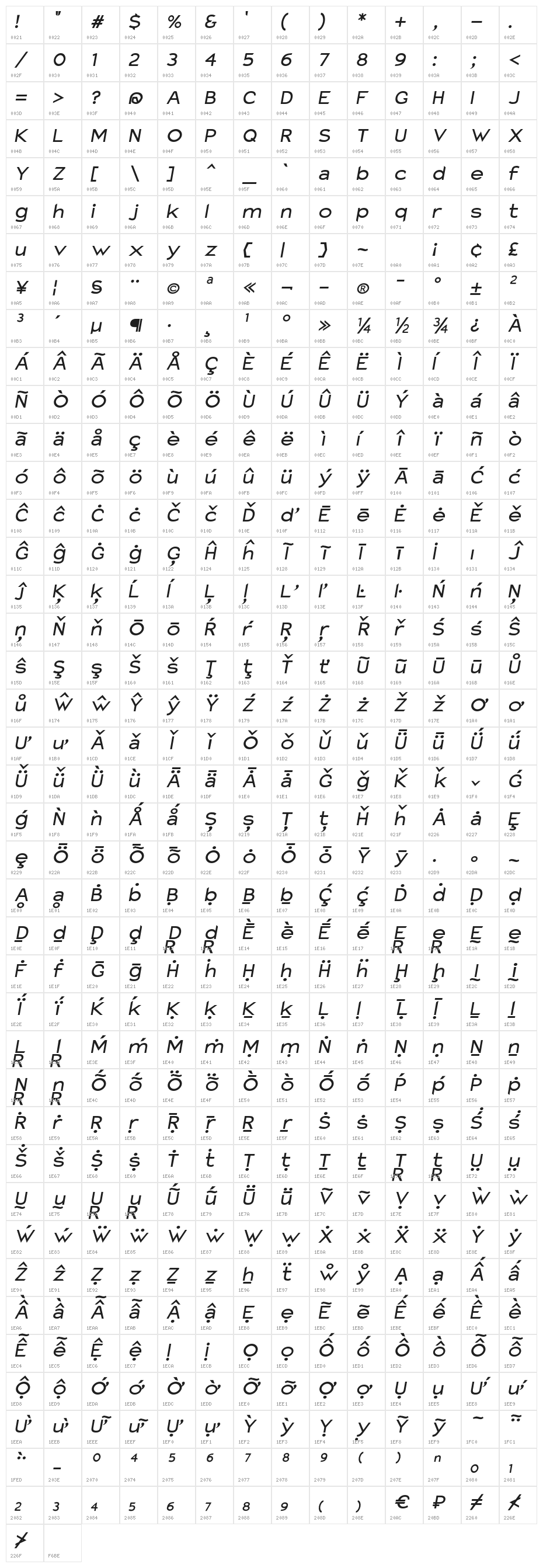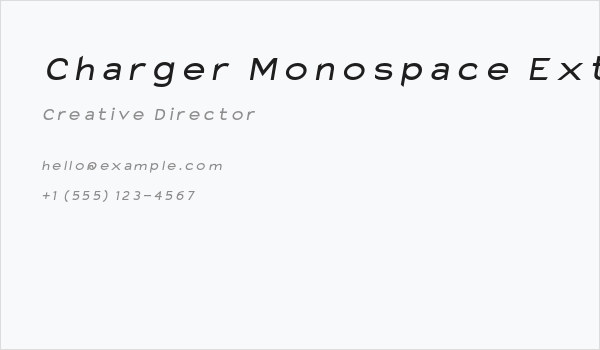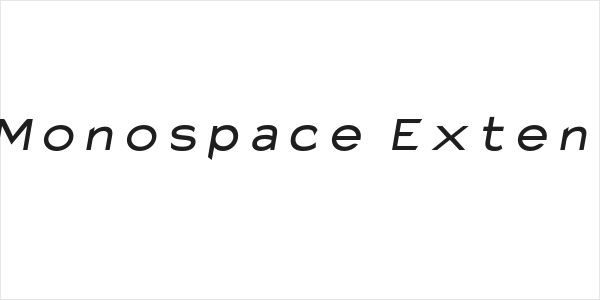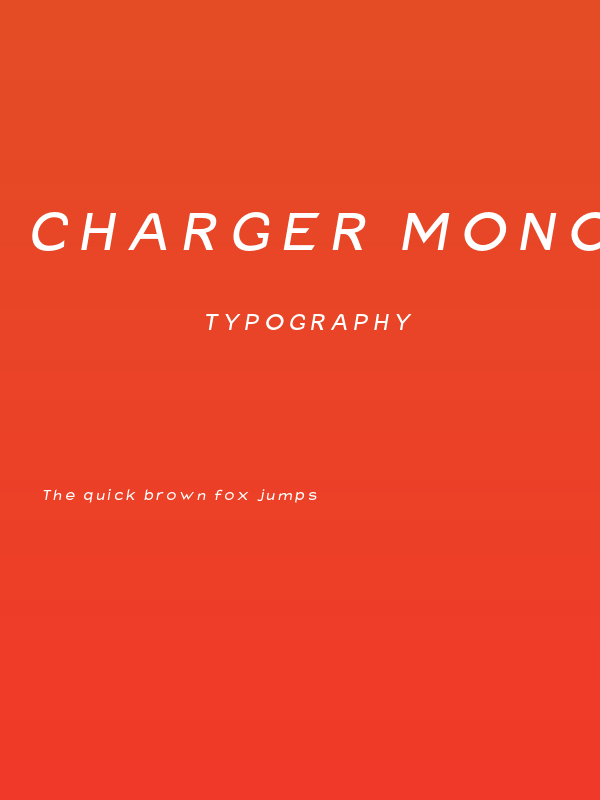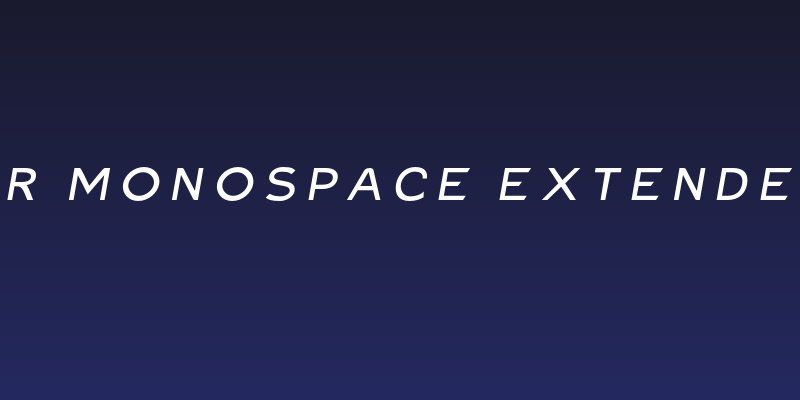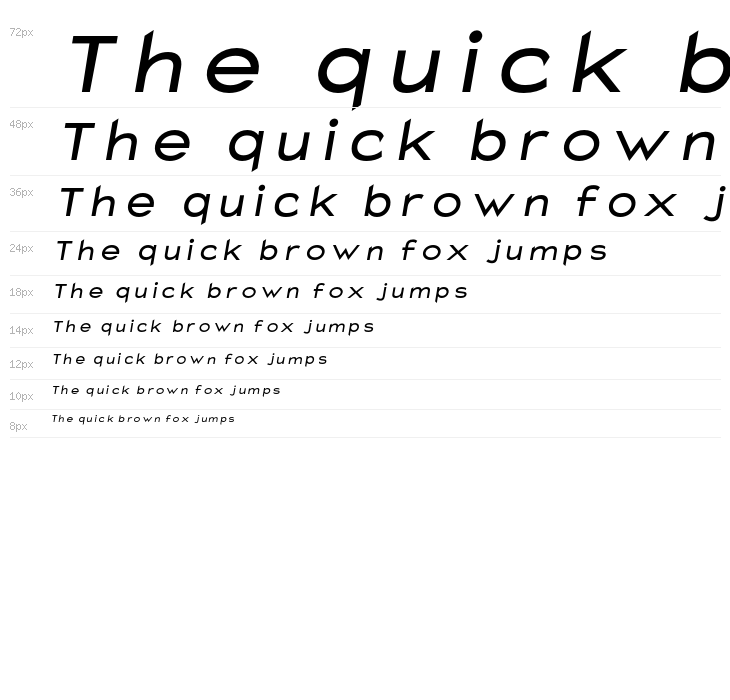
Charger Monospace Extended Italic Font
Charger Monospace Extended Italic Description
This font features a sleek, modern design with a distinct italic slant, giving it a dynamic and forward-moving appearance. The characters are uniformly spaced, adhering to a monospace style, which ensures consistent alignment across different lines of text. The extended width of the characters provides a spacious and open feel, enhancing readability. The strokes are smooth and slightly rounded, contributing to a clean and polished look. The font maintains a medium contrast between thick and thin strokes, adding subtle depth without compromising clarity. Its versatility makes it suitable for both digital and print media, offering a contemporary aesthetic that is both functional and stylish.
| Proposed Projects | Ideal for coding environments, technical documentation, modern branding, and digital interfaces. |